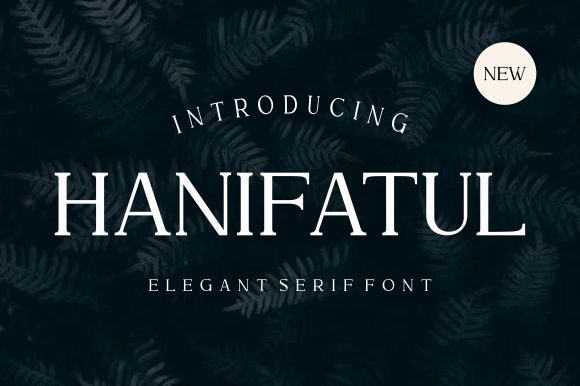
Hanifatul: A Refined Serif Typeface for Editorial Design
There is a specific kind of quiet confidence required when redesigning the header of a lifestyle publication. You are not just choosing letters; you are setting the tone for every story that follows. Last month, while overhauling the visual identity for a seasonal digital magazine focused on slow living and home aesthetics, I found myself scrolling through endless options. Many felt too aggressive for the content, while others lacked the structural integrity needed for large-scale headlines. That was when I introduced Hanifatul into the workflow.
As a professional serif font, Hanifatul immediately distinguished itself with an elegant rhythm that feels both contemporary and timeless. It is not merely a collection of glyphs; it is a tool for establishing mood. In the context of editorial design, where the relationship between text and white space is paramount, this typeface offers a sophisticated presence that commands attention without shouting. For publishers, bloggers, and independent creators looking to elevate their brand identity, understanding how a font like Hanifatul functions in real-world layouts is essential.
Establishing Visual Hierarchy in Digital Publications
The primary challenge in modern web design and PDF creation is guiding the reader's eye through a sea of content. Hanifatul excels as a display font, making it ideal for headlines, poster titles, and magazine covers. When I applied it to the cover story of the project mentioned earlier, the difference was palpable. The serifs possess a delicate sharpness that cuts through the noise of a busy homepage, yet they retain enough softness to invite the reader in.
For those creating course PDFs, coaching workbooks, or printable planners, visual hierarchy is the backbone of usability. Hanifatul works exceptionally well for chapter openers and section headings. Its distinct character helps break up long-form content, giving the reader natural pause points. However, it is important to recognize its strengths. While it is stunning for titles and pull quotes, it is best reserved for short-to-medium lengths of text. Using it for dense paragraphs or small captions might reduce readability, especially on mobile devices where screen real estate is limited. In these instances, pairing Hanifatul with a clean sans serif font for body copy creates a balanced and highly readable layout.
Ideal Applications for Content Creators
The versatility of Hanifatul extends across various mediums, provided it is used with intention. Here are a few scenarios where this premium font truly shines:
- Lifestyle Blog Headers: It adds an immediate touch of authority and grace to blog titles, signaling high-quality content before the user even scrolls.
- Recipe Ebooks: The classic structure of the letters complements food photography beautifully, evoking a sense of tradition and care.
- Wedding Guides: For invitations or informational booklets, the elegant strokes provide a romantic yet professional aesthetic.
- Newsletter Graphics: When creating header images for email campaigns, Hanifatul ensures the subject matter is clear and visually appealing.
- Branding and Logos: Its unique personality makes it a strong candidate for logo design, particularly for brands in the beauty, fashion, or wellness sectors.
In each of these applications, the font supports the overall brand identity. It tells the audience that the creator values detail and quality. Whether you are designing a social media graphic or a full-page advertisement, the consistency offered by a single, strong typeface helps build recognition over time.
Readability and Technical Considerations
When selecting a commercial font for a client project or a product intended for sale, technical performance is just as important as aesthetics. Hanifatul is designed with clarity in mind, but like any display serif, it requires appropriate sizing. In my testing across different devices, the font maintained its integrity on high-resolution screens, making it perfect for retina displays and print materials alike.
However, for long-form reading on smaller mobile screens, I recommend sticking to larger point sizes if using Hanifatul beyond headlines. For the bulk of an article or the main text of an ebook, a complementary body font is necessary. This approach ensures that the reader does not experience eye fatigue. The contrast between the expressive nature of Hanifatul and a neutral body font creates a dynamic reading experience that keeps the audience engaged from the first headline to the final call to action.
Furthermore, before integrating Hanifatul into templates, digital downloads, or client publications, it is crucial to review the included styles and licensing terms. Check for the availability of alternates, ligatures, and multilingual support if your audience is global. Ensuring you have the correct file formats for both web and print workflows will save significant time during the production phase. Always verify the commercial license to ensure it covers your specific use case, whether that involves selling printables, creating paid newsletters, or developing branding assets for a business.
Crafting a Cohesive Editorial Mood
Ultimately, the choice of typography is an emotional one. Hanifatul brings a sense of calm professionalism to a layout. It suggests that the content within is thoughtful, curated, and valuable. For editorial designers, this is the holy grail: a font that does the heavy lifting of setting the mood while remaining flexible enough to adapt to different content structures.
In a world saturated with generic creative fonts and overused scripts, returning to a well-crafted serif like Hanifatul feels like a breath of fresh air. It reminds us that good design is not about complexity, but about clarity, rhythm, and the right emotional resonance. For anyone serious about their publication's identity, this typeface is a worthy addition to the design arsenal.